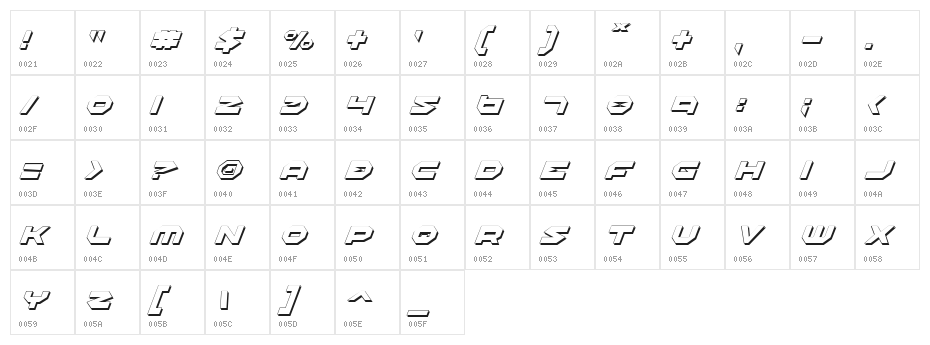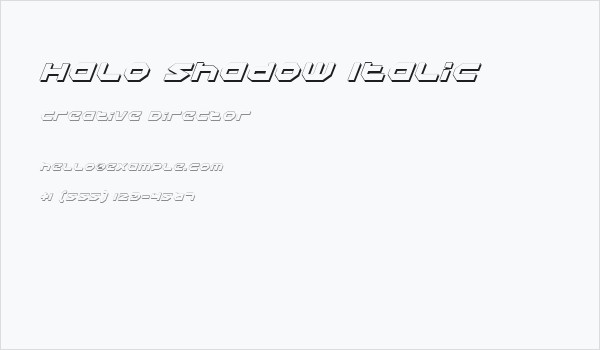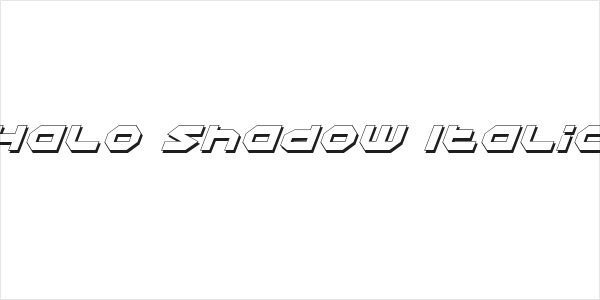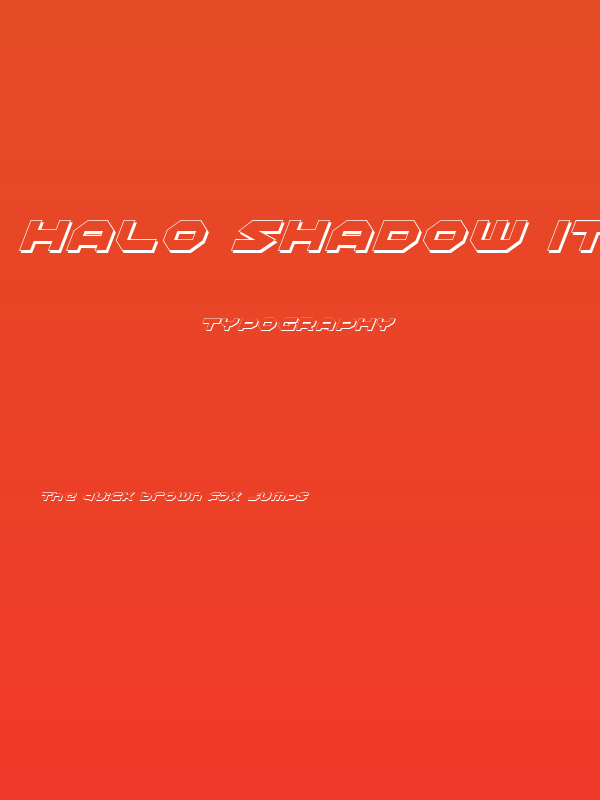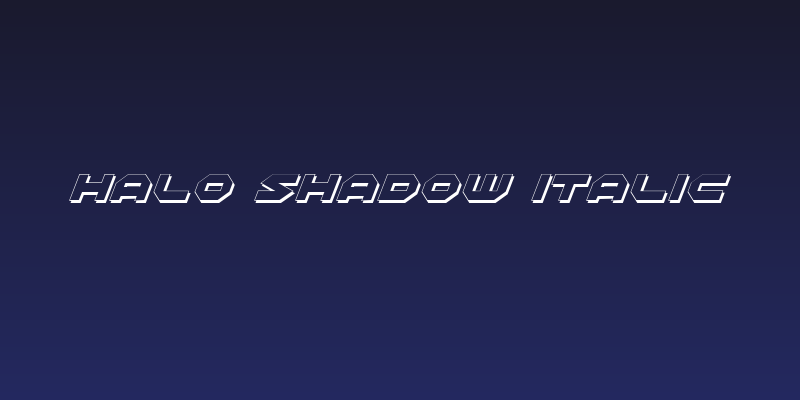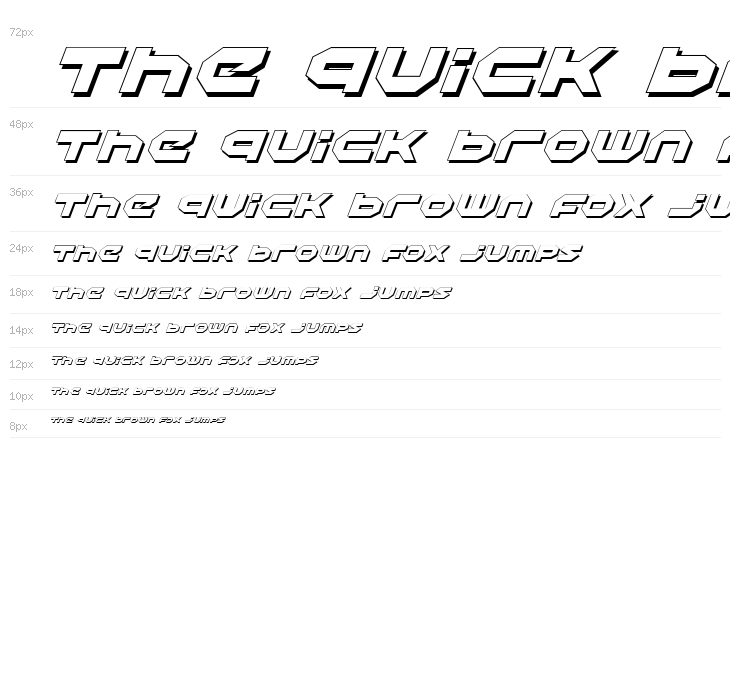
Halo Shadow Italic Font
Halo Shadow Italic Description
This font features a bold, futuristic design with a distinct shadow effect that gives it a three-dimensional appearance. The characters are angular and geometric, with sharp edges and a consistent italic slant that adds a sense of motion and dynamism. The shadow is offset to the right, enhancing the depth and making the text stand out. The uppercase and lowercase letters maintain a uniform style, while the numerals and special characters are crafted to match the overall aesthetic. This font is ideal for projects that require a modern, tech-inspired look.
| Proposed Projects | Ideal for video game titles, tech branding, sci-fi posters, and digital media. |